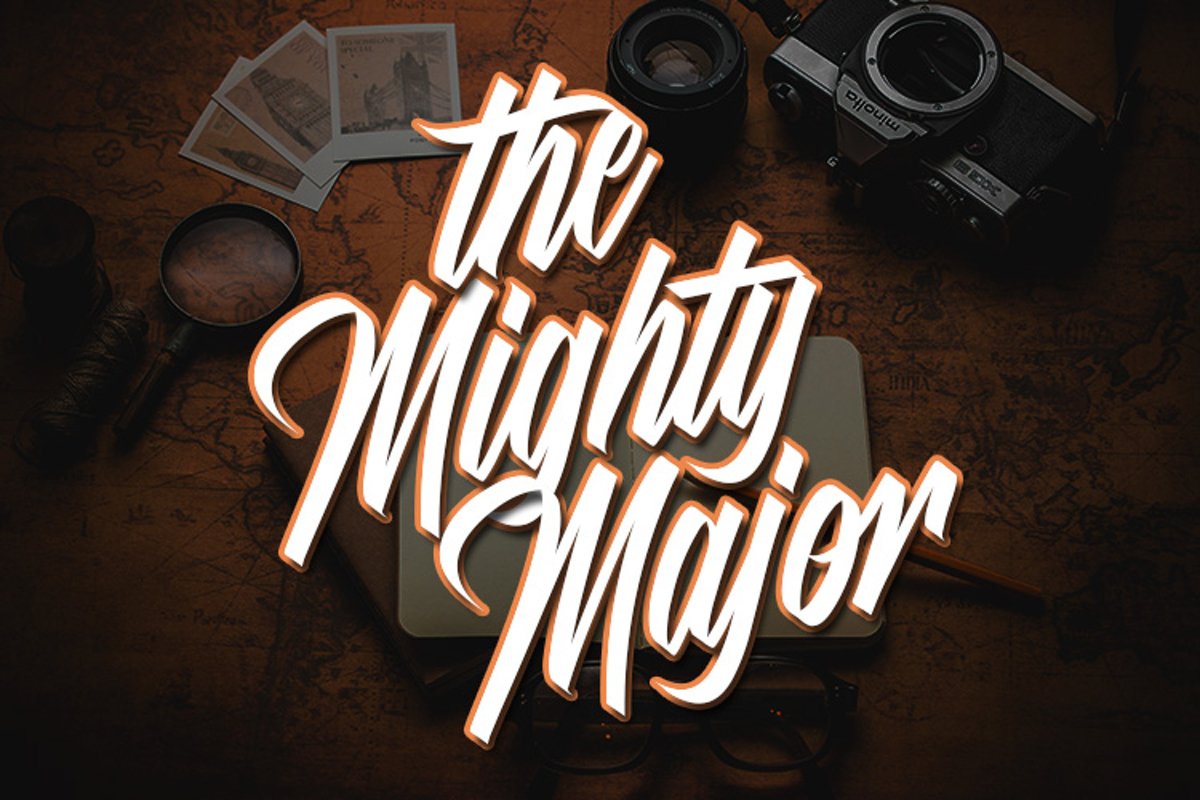
The Mighty Major - Calligraphy Script Font
The Mighty Major
Introducing of our new product the name is The Mighty Major - Calligraphy Script Font. The Mighty Major inspired by calligraphy font. This font is perfect for signature, poster, fashion, wedding, branding, logotype, typography, etc.